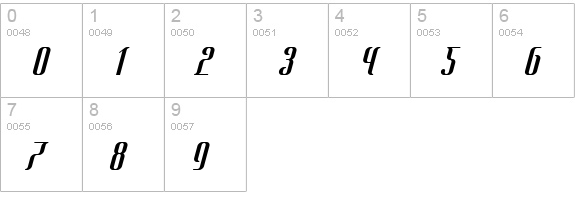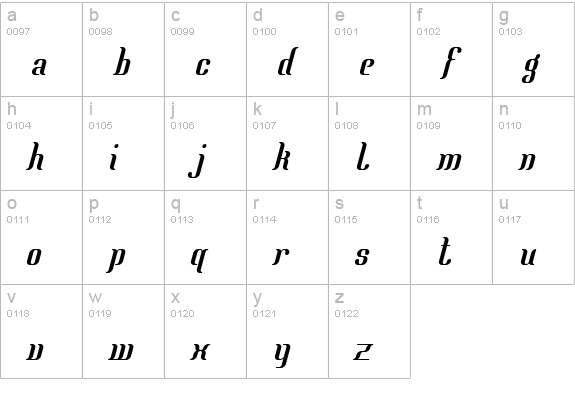
Mata Hari Hollandaise Italic Font Details
Mata Hari Hollandaise Italic is a distinctive, italic variant in the Mata typeface family \xE2\x80\x94 well suited to design and typography projects.
Introducing Mata Hari Hollandaise Italic, a stunning font that effortlessly combines elegance and modernity. With its graceful curves and delicate strokes, this font is perfect for any design project that requires a touch of sophistication. Mata Hari Hollandaise Italic is not just visually appealing, but also incredibly versatile. Whether you're designing a logo, creating a website, or crafting a beautiful invitation, this font will add a touch of class to your work. One of the best things about Mata Hari Hollandaise Italic is that it is available for free download at FontsMarket.com. This means that you can easily access this remarkable font without breaking the bank. Whether you're a professional designer or a hobbyist, this font is a must-have in your collection. The beauty of Mata Hari Hollandaise Italic lies in its attention to detail. Each letter is meticulously crafted, resulting in a font that exudes elegance and sophistication. The italic style adds a hint of flair, making it perfect for adding emphasis or creating eye-catching headlines. With its clean and legible design, Mata Hari Hollandaise Italic is also incredibly readable, making it suitable for a wide range of applications. From elegant wedding invitations to sleek business cards, this font will elevate your designs and leave a lasting impression. So why wait? Download Mata Hari Hollandaise Italic for free at FontsMarket.com and unleash your creativity. Whether you're designing for print or digital, this font will effortlessly elevate your projects to new heights. Don't miss out on the opportunity to add this stunning font to your collection and take your designs to the next level.